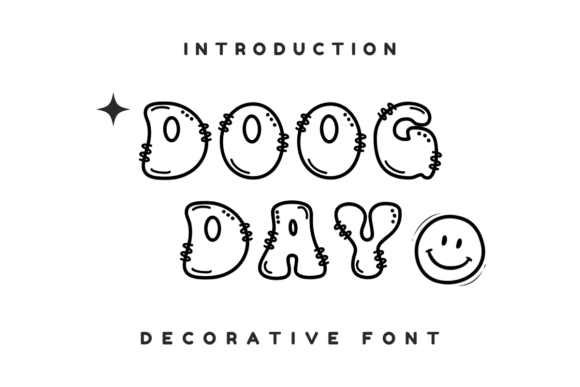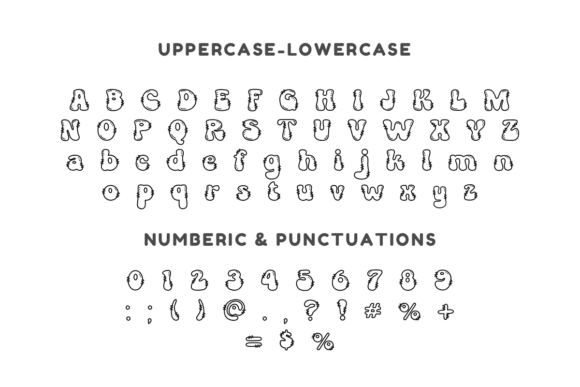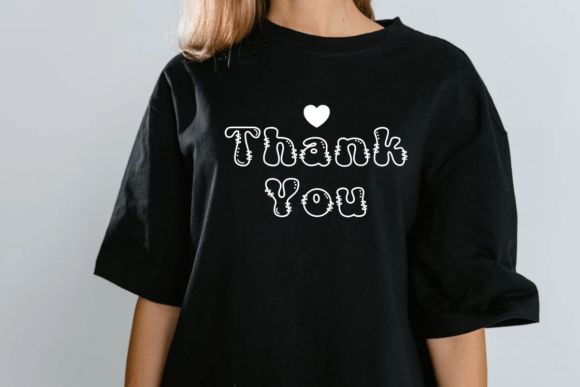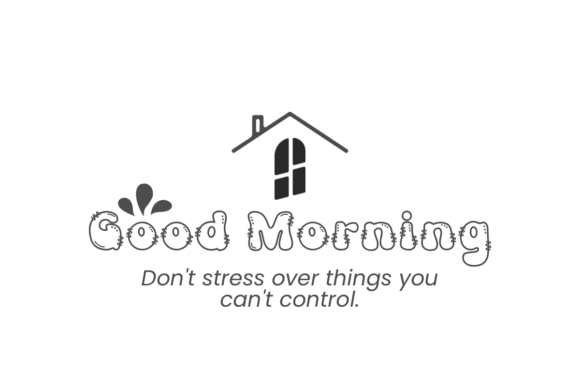
Doog Day Font
About the Doog Day Font
Discover the charm of Doog Day Font. This font is a perfect blend of modern aesthetics and classic appeal. Doog day is a handwritten font. You can use it for taking notes, writing a diary, or making greeting cards. However, you can still use it for other designs, such as banners, content, mugs, cards, shirts, stationery, social media posts, and more!
Doog Day’s casual, handwritten style works best for projects requiring a friendly, approachable feel. Ideal applications include branding for small businesses with a handcrafted aesthetic, greeting cards, short social media posts, and packaging for artisan products. It excels in headlines and short text segments where its informal character adds personality.
However, its legibility suffers in longer blocks of text or UI elements. Avoid using Doog Day for body copy, lengthy articles, or website interfaces where readability is paramount.
Pairing Doog Day with a clean sans-serif like Lato for body text provides excellent contrast and visual balance. For a more sophisticated look, consider a classic serif font such as Garamond. These pairings allow Doog Day’s playful energy to shine without overwhelming the design.
Doog Day Font Usage Examples
Doog Day Font Example